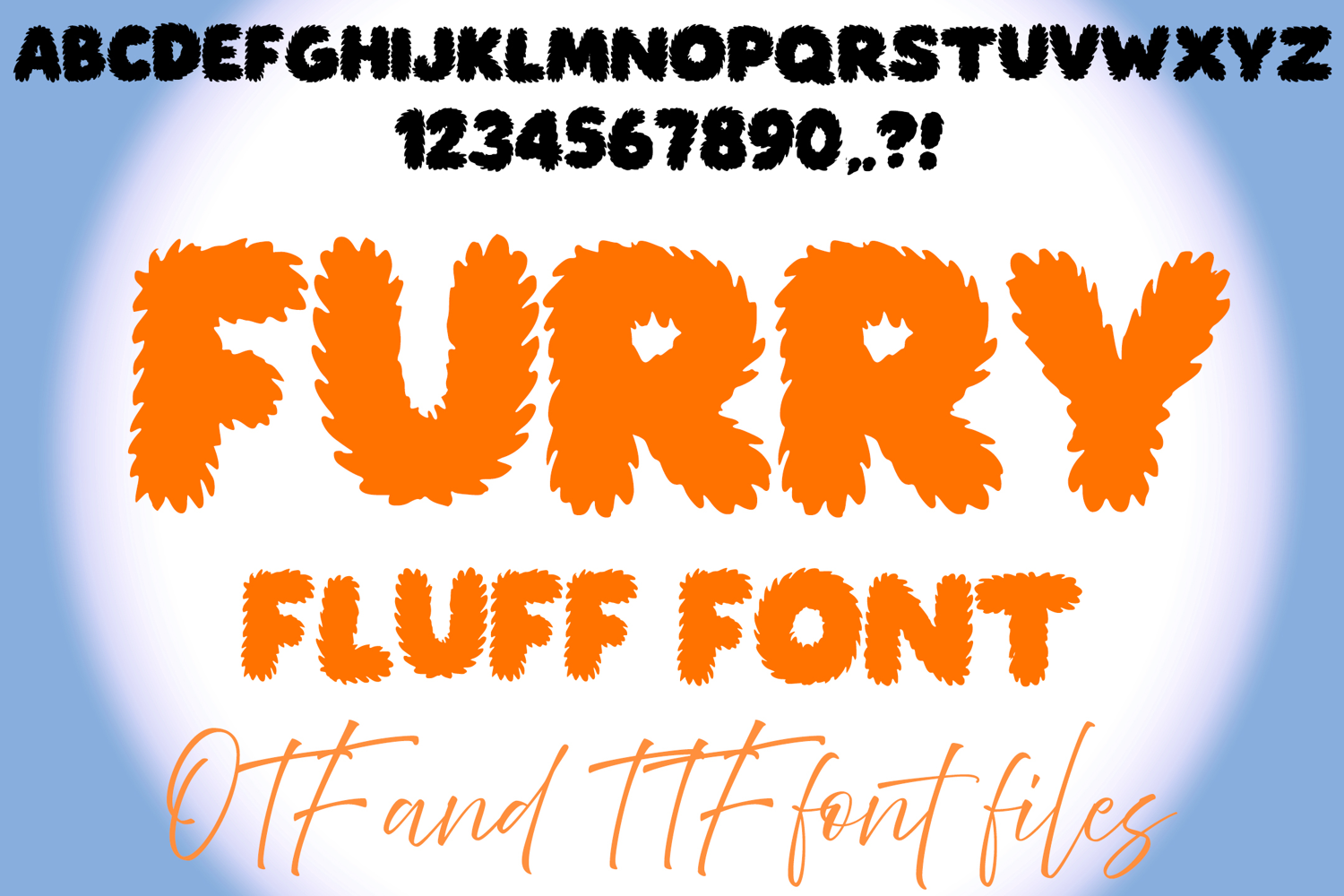
Furry Fluff Typeface Lettering ABC Text Font fur OTF IllustrationÂ
A cartoon style font where you can create your own words and colour them to your vision!
Contains OTF and TTF file. Capital letters ?!., and numbers only.